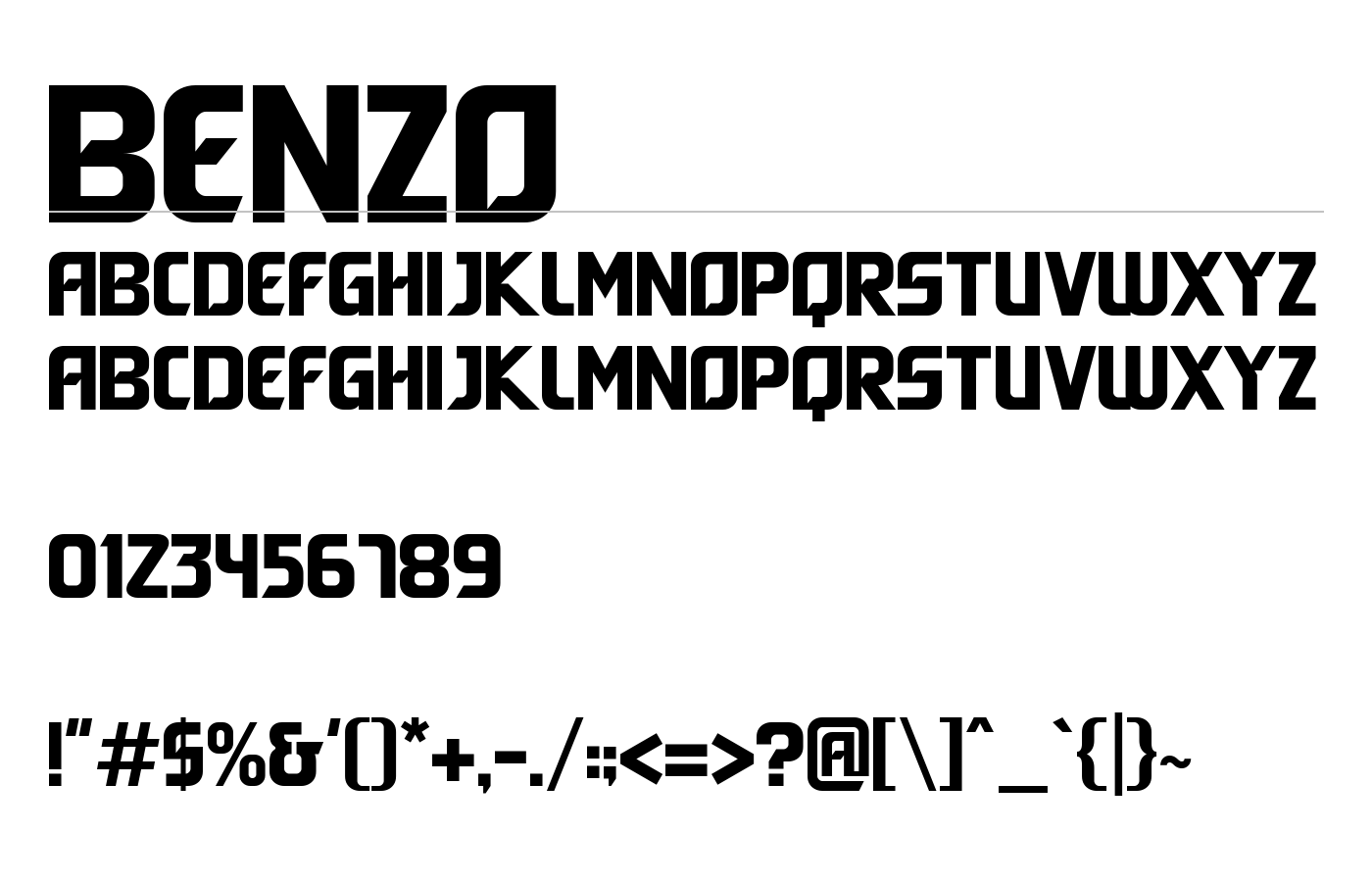
Benzo is a bold, geometric sans serif font with a strong presence and modern appeal. Its high x-height and blocky letterforms, combined with sharp angles and unique details like the split diagonal in the Q, make it ideal for eye-catching headlines, logos, and branding that demand a futuristic or tech-savvy vibe. This font works best in large sizes where its distinctive style can really stand out, adding a dynamic and confident tone to design projects.
Benzo Font